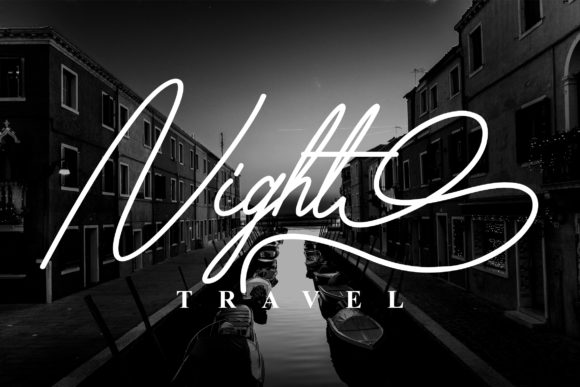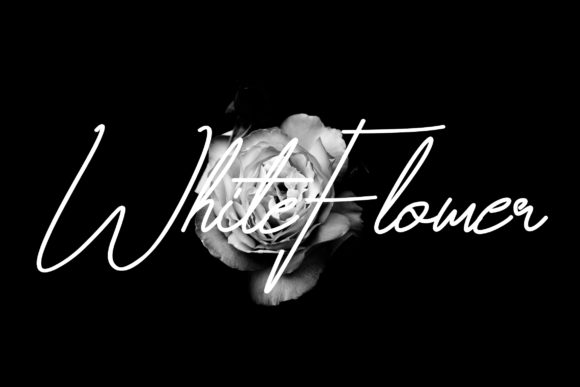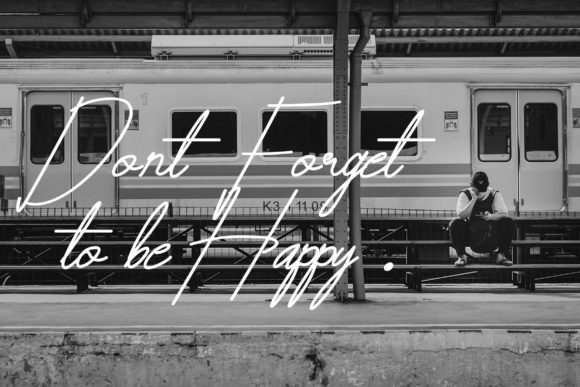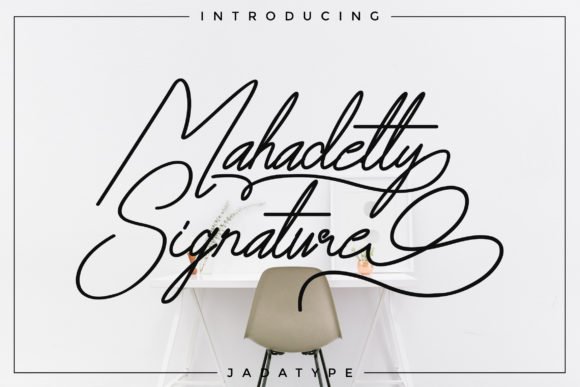
Introduction to Mahadetty Font
Mahadetty signature is a monoline font that has a messy first impression but looks charming in detail.
Key Features of Mahadetty Font
Why Choose Mahadetty Font?
Mahadetty Font offers exceptional quality and versatility, making it a valuable addition to your design toolkit. Whether you’re creating for personal projects or commercial use, Mahadetty Font delivers professional results.